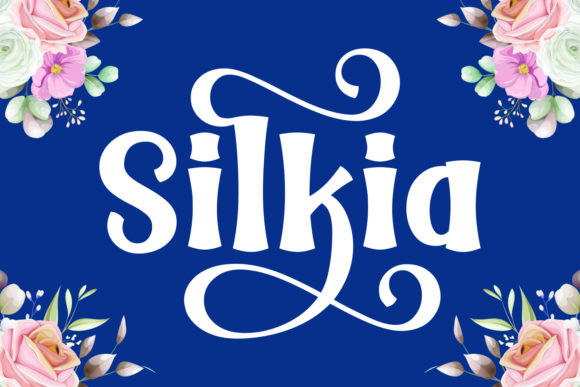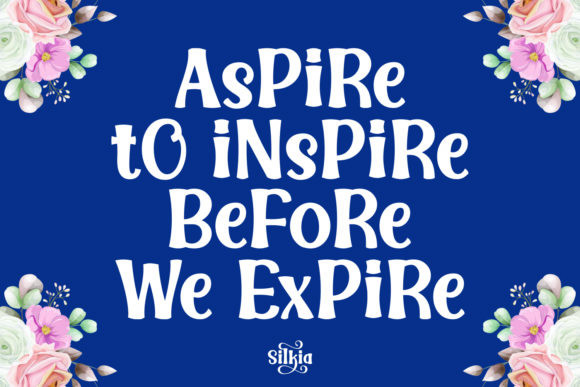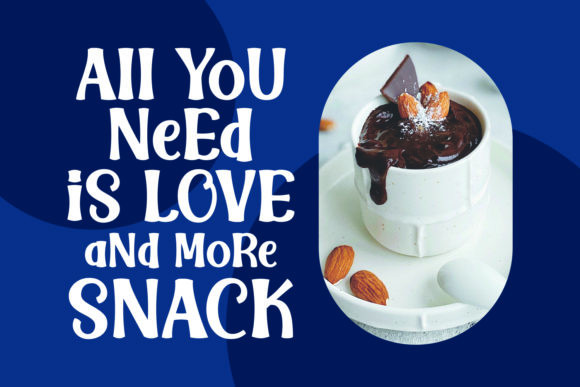
Silkia Font
Silkia is a bold yet elegant and distinct handwritten font. It can be used for various purposes such as logos, wedding invitations, headings, t-shirts, letterhead, signage, labels, news, posters, badges and so much more.